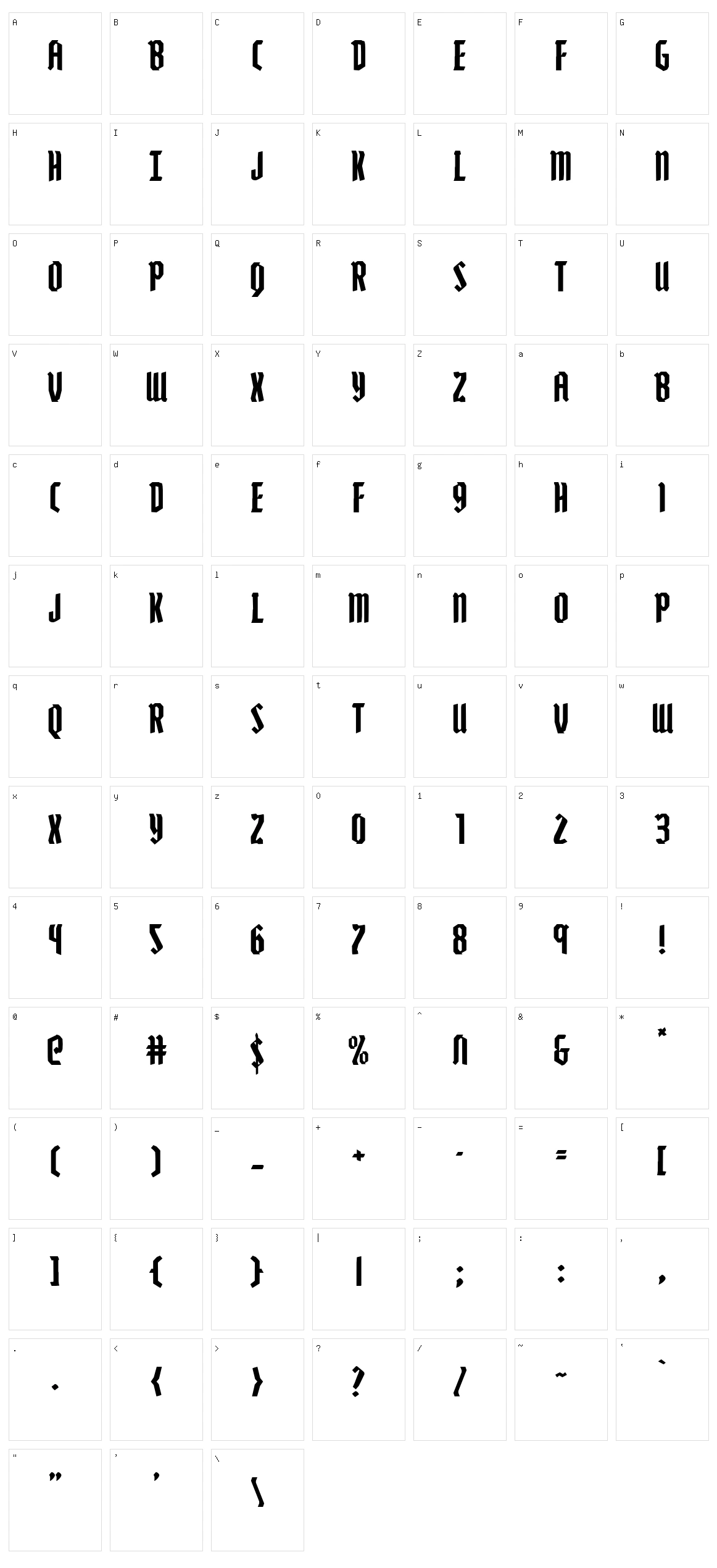
Zollern
This font comes with the following 14 versions: Regular, Italic, Condensed, Condensed Italic, Expanded, Expanded Italic, Extra-Expanded, Extra-Expanded Italic, Outline, Outline Italic, 3D, 3D Italic, Rotalic and Leftalic.